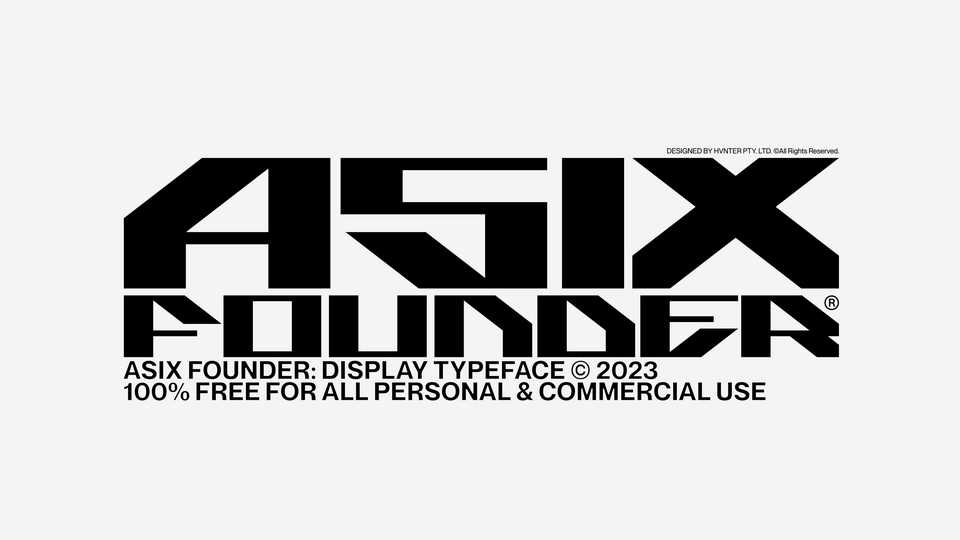
Download Axis Founder font, a heavy and sharp display typeface inspired by y2k aesthetics. Axis Founder font is great for highlighting titles, working with posters, and web design.
Designer: Hvnter